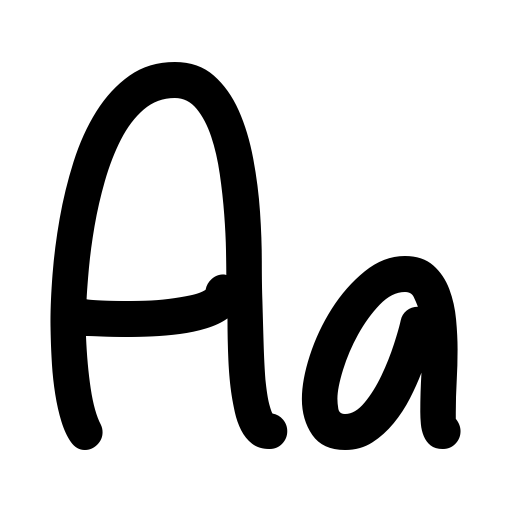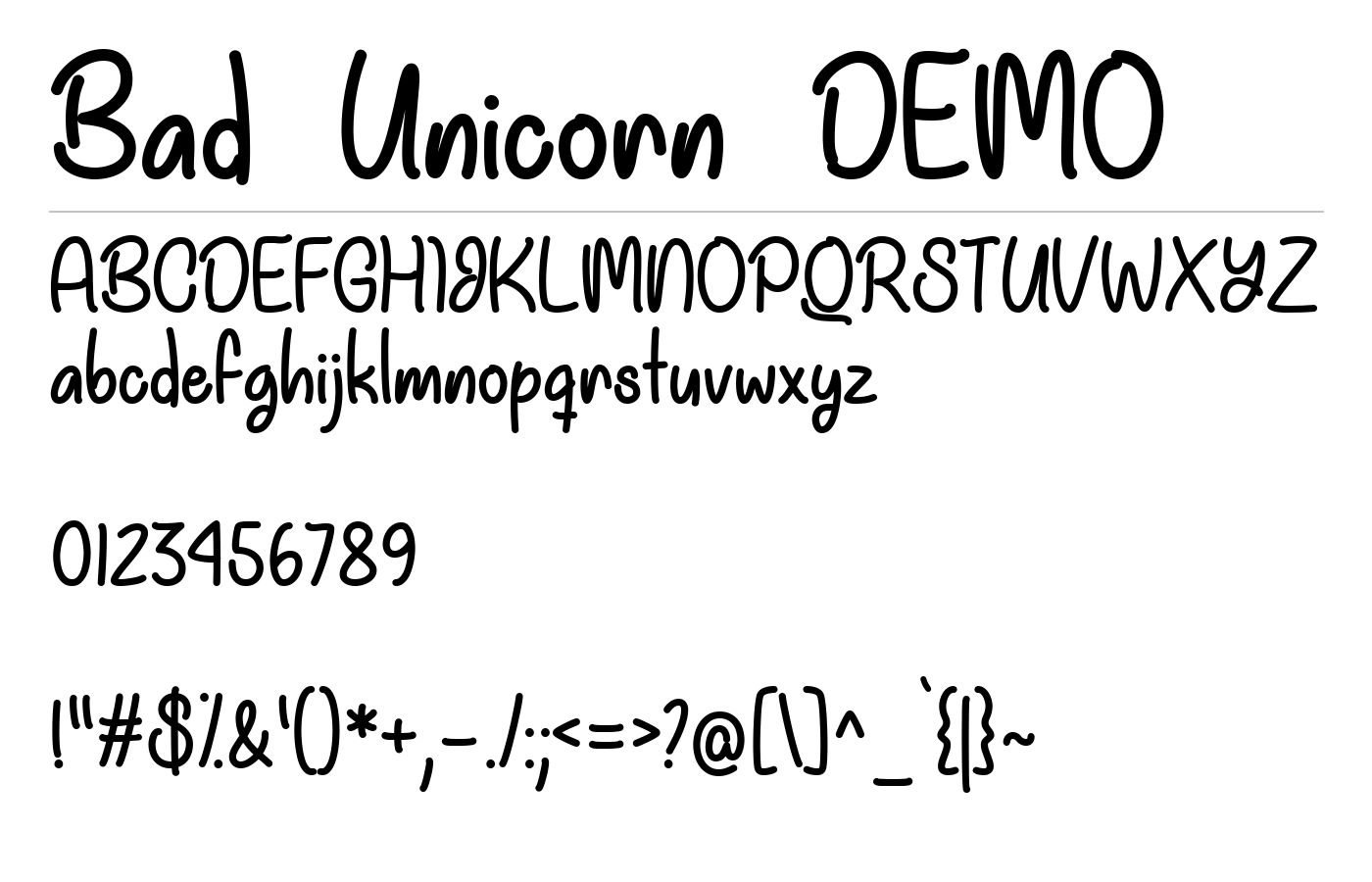
Bad Unicorn DEMO is a playful, casual handwritten sans serif font featuring smooth, rounded strokes and a lively rhythm. Its irregular letterforms and tall x-height give it a friendly, approachable vibe, making it perfect for informal designs, children’s materials, and creative branding that seeks a personal touch. This font works well in headlines, logos, and packaging where a fun, whimsical feel is desired.
Bad Unicorn DEMO Font
About Bad Unicorn DEMO Font
| Designer | Misti's Fonts |